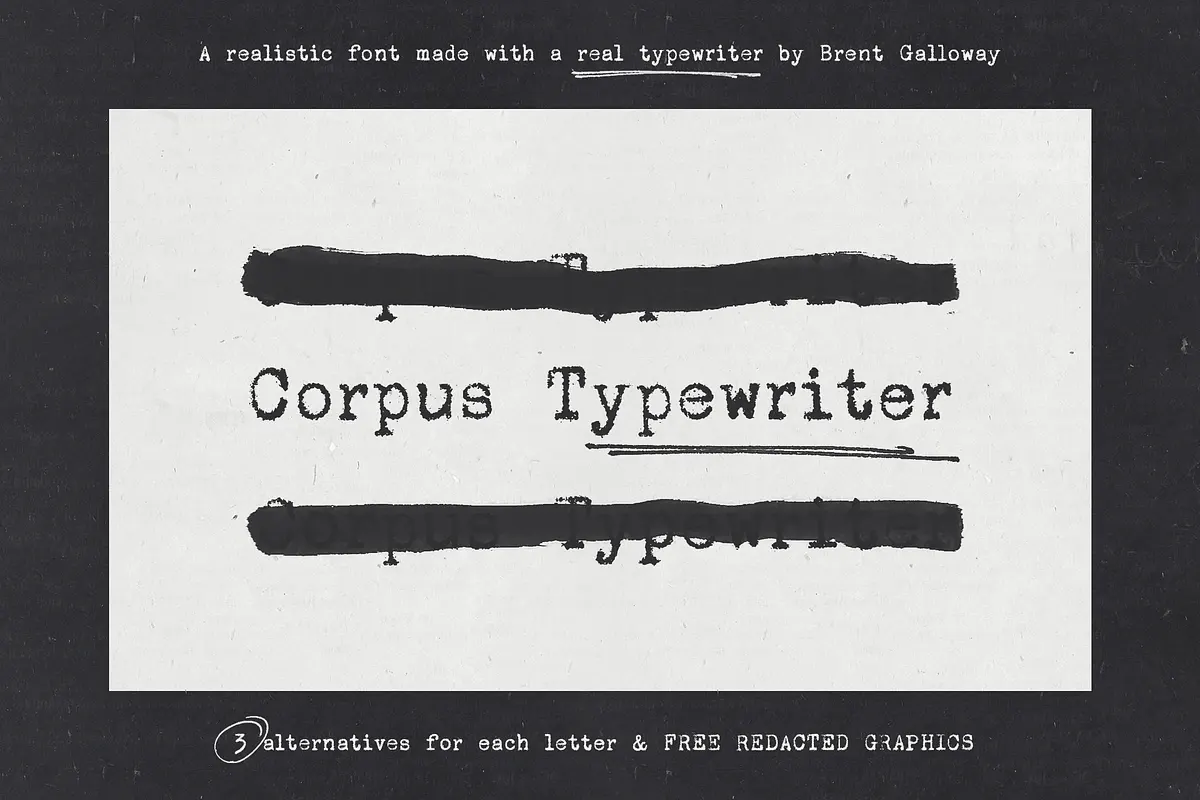
Corpus Typewriter Font Free Download is an authentic typewriter-style typeface designed by Brent Galloway. This font captures the nostalgic essence of vintage typewriters, featuring a distressed and textured appearance that adds a touch of realism to your designs. Each letter and number includes three alternative characters, allowing you to create a more natural and varied typewritten effect. This makes it ideal for projects that require a retro or handcrafted feel, such as vintage posters, typewriter art, logos, headlines, and other creative endeavors.
The font is available in OTF format and includes a comprehensive set of glyphs to support various design needs. Its monospaced design ensures uniformity, making it suitable for both display and body text applications.
Experience the timeless charm of Corpus Typewriter Font Free Download in your personal projects. Its authentic typewriter aesthetics will infuse your designs with a classic and nostalgic touch, evoking the mechanical beauty of traditional typewriting.